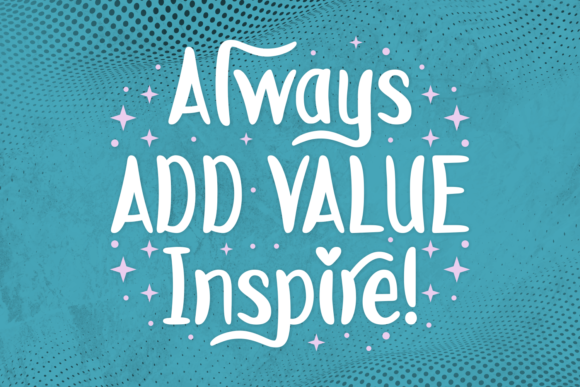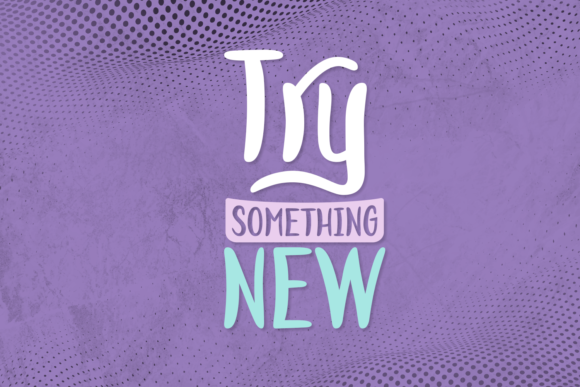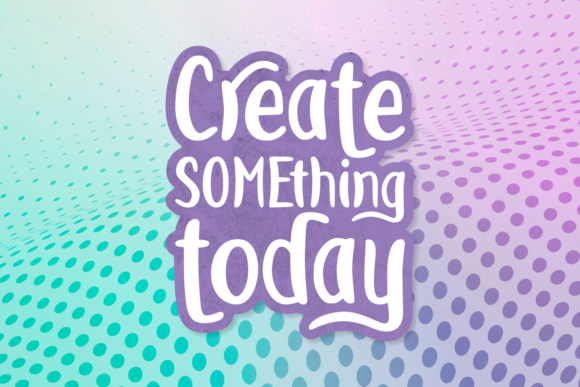
About Yokkey Font
“Yokkey” is a cute hand-drawn font characterized by tall and thin characters. This creative typeface is a versatile choice suitable for a range of design applications, including logos, t-shirts, banners, covers, posters, greeting cards, quotes, and more.
The tall and thin characters of “Yokkey” add a playful and contemporary aesthetic to your text, making it well-suited for projects that require a creative and lighthearted touch. Whether you’re designing a logo, creating t-shirts with a unique font, or working on promotional materials like banners and posters, “Yokkey” offers a distinctive and eye-catching option.
The hand-drawn quality of the font contributes to its charm, bringing an element of authenticity and creativity to your designs. “Yokkey” is designed to stand out, making it a great choice for projects where you want to capture attention and convey a sense of individuality.
The versatility of “Yokkey” extends to various design contexts, allowing you to experiment with different applications. Whether you’re creating a cover design, a greeting card, or incorporating quotes into your project, this cute hand-drawn font can add a touch of creativity and uniqueness.
In summary, “Yokkey” is more than just a font; it’s a cute and hand-drawn typeface that can enhance the visual appeal of your designs. Consider using “Yokkey” in your next project to infuse a playful and creative atmosphere into your logos, t-shirts, banners, covers, posters, greeting cards, quotes, and more.